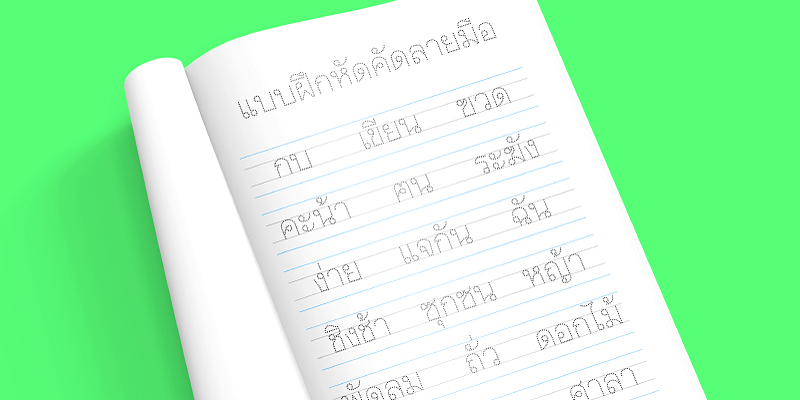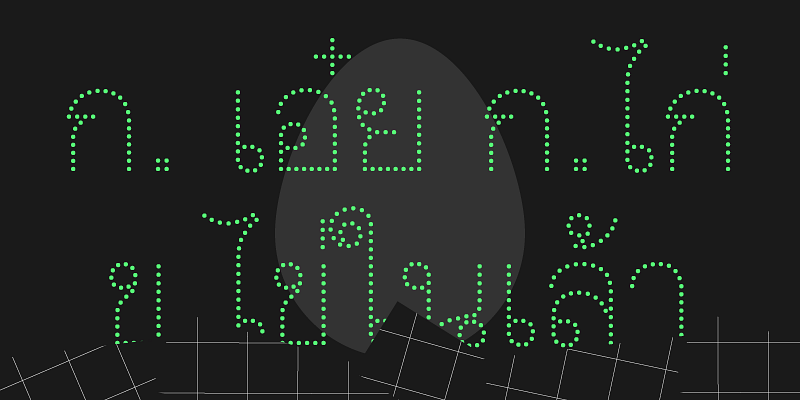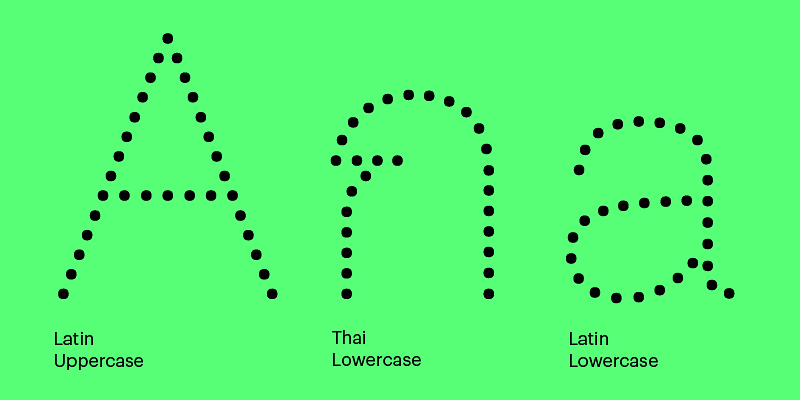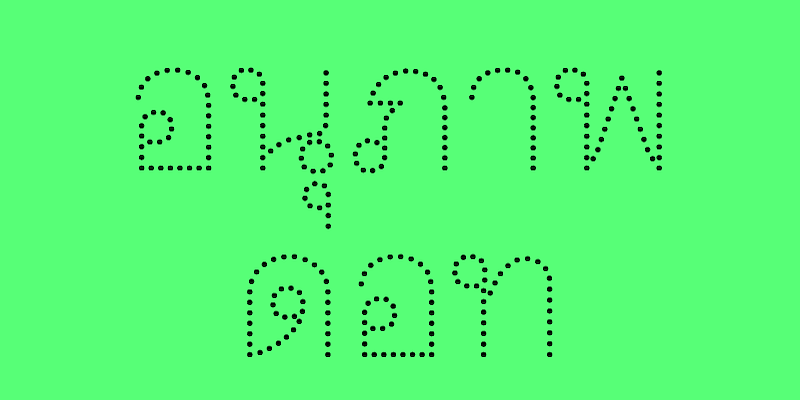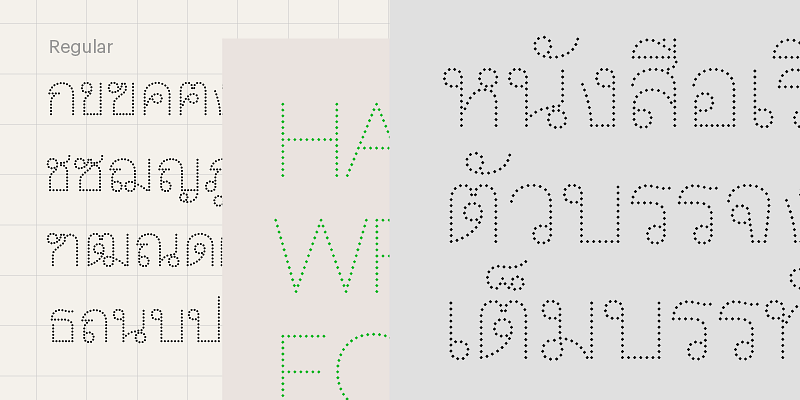
Anuparp Dot is the newest member in the Anuparp family. It is a looped, grotesque, and dotted sans serif typeface. It might look deceptively easy to design, but requires a sharp eye and borrows some logic from creating pixel fonts to ensure that the dots look visually hinted. Anuparp Dot began as a practice font for the designer, which also serves as practice for beginners to trace along the dotted looped Thai characters.